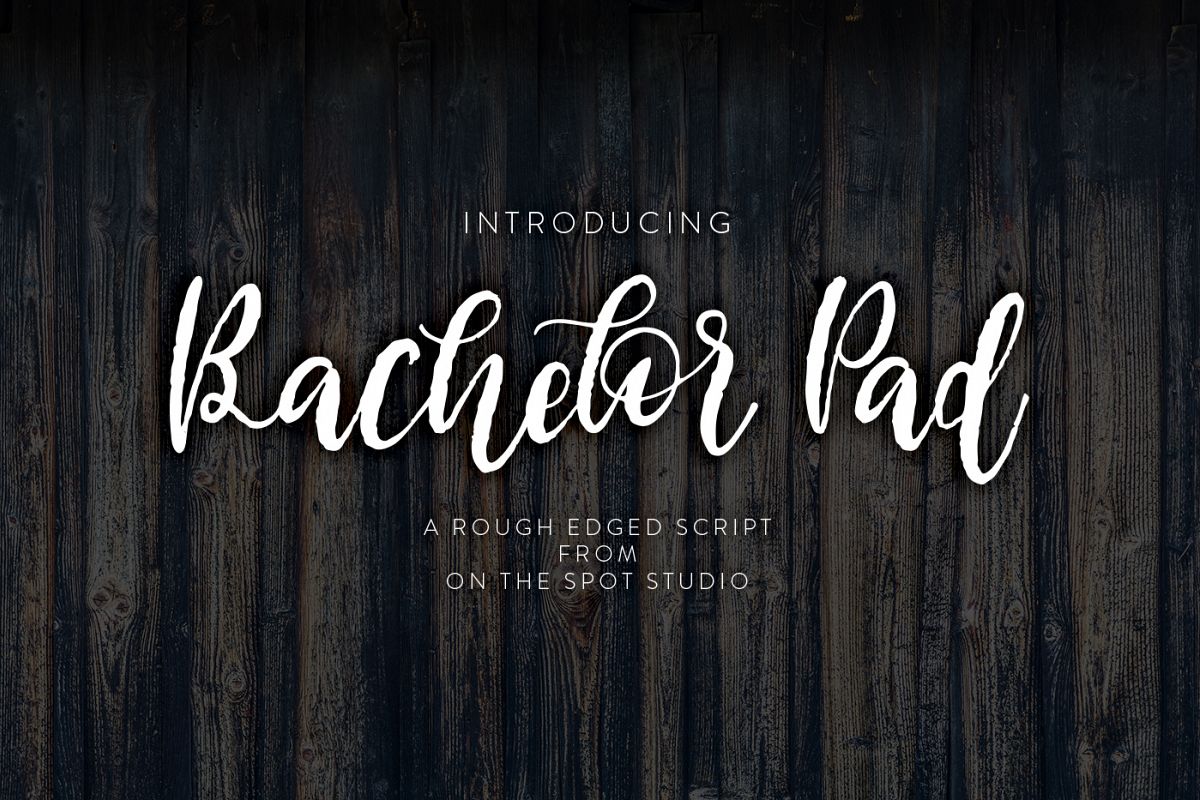
Bachelor Pad
Bachelor Pad is a rough edged casual scrip great for tees, branding, and so much more!? Commercial Use OK! Please do NOT resell, redistribute, or create SVG alphabets of this font. ? Includes OTF and TTF in zipped download file
Bachelor Pad